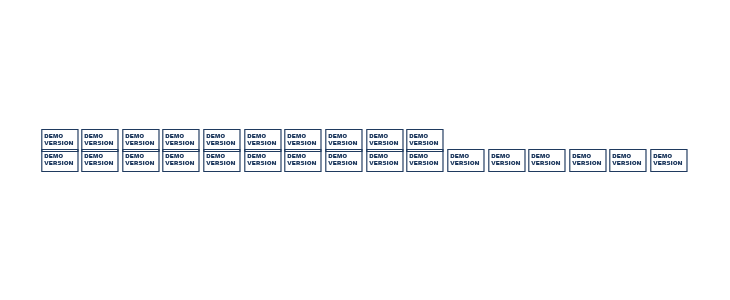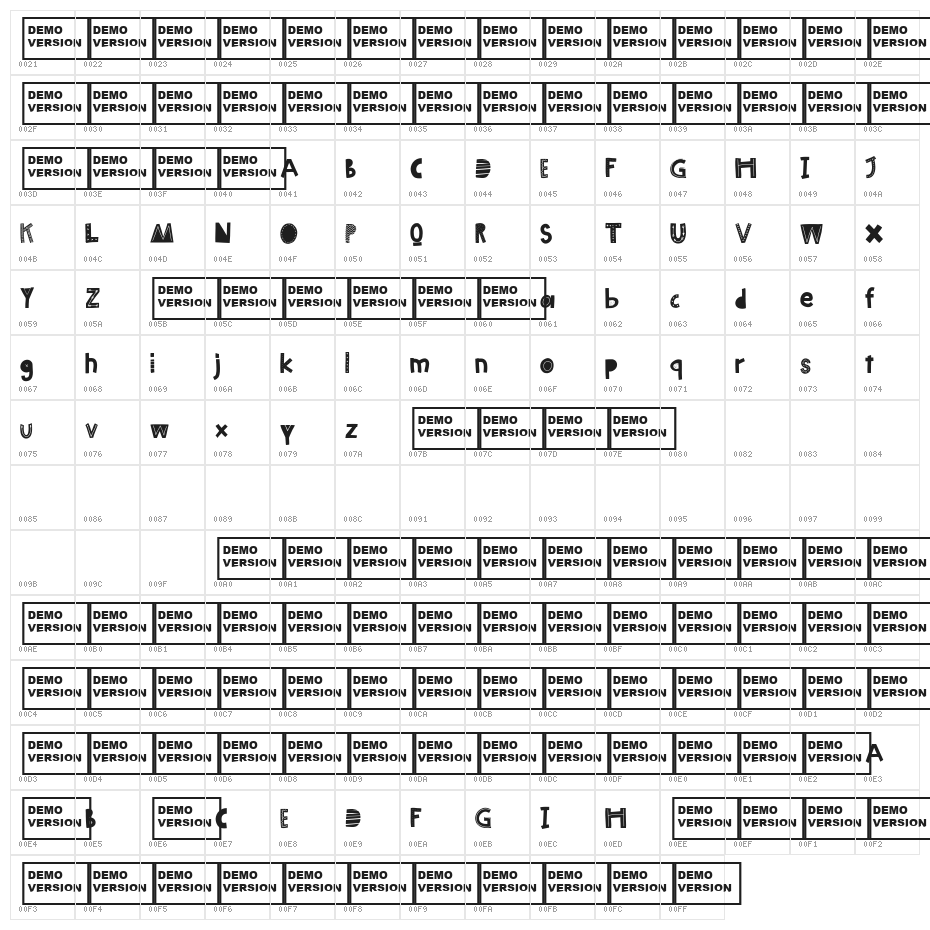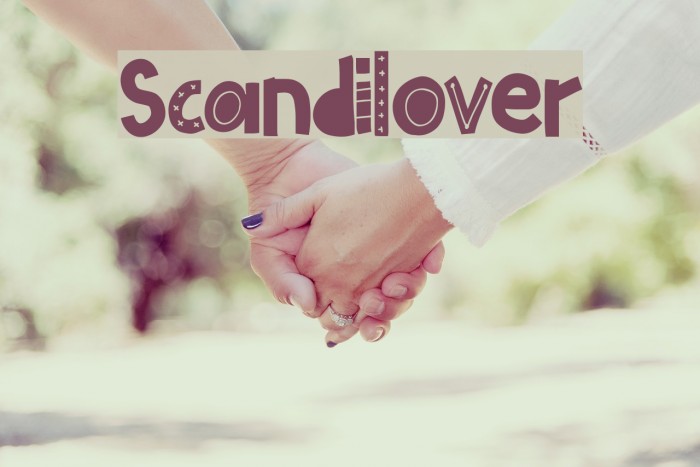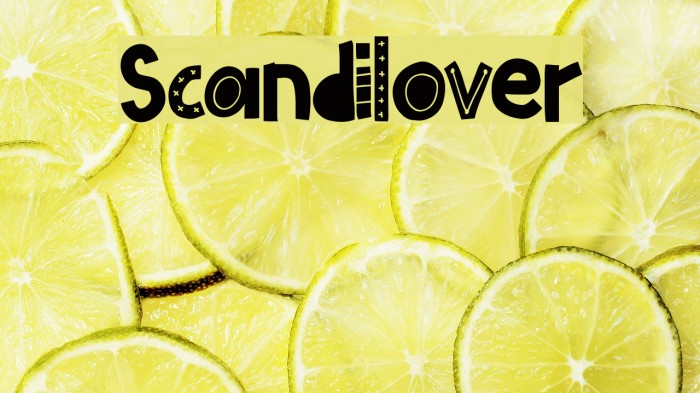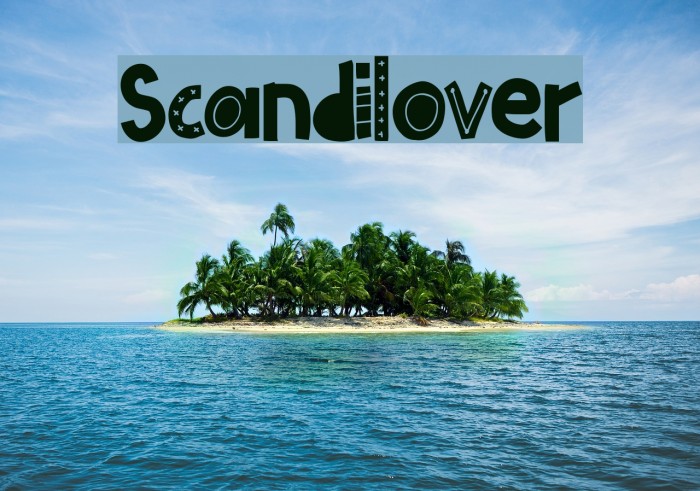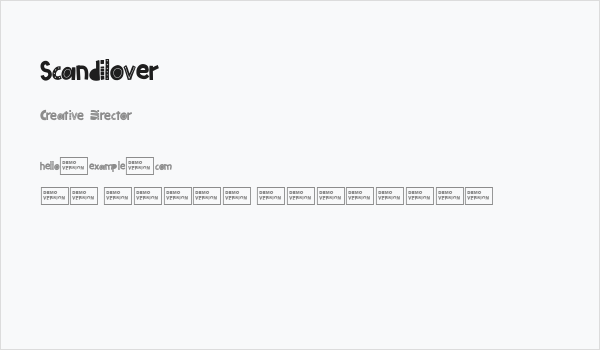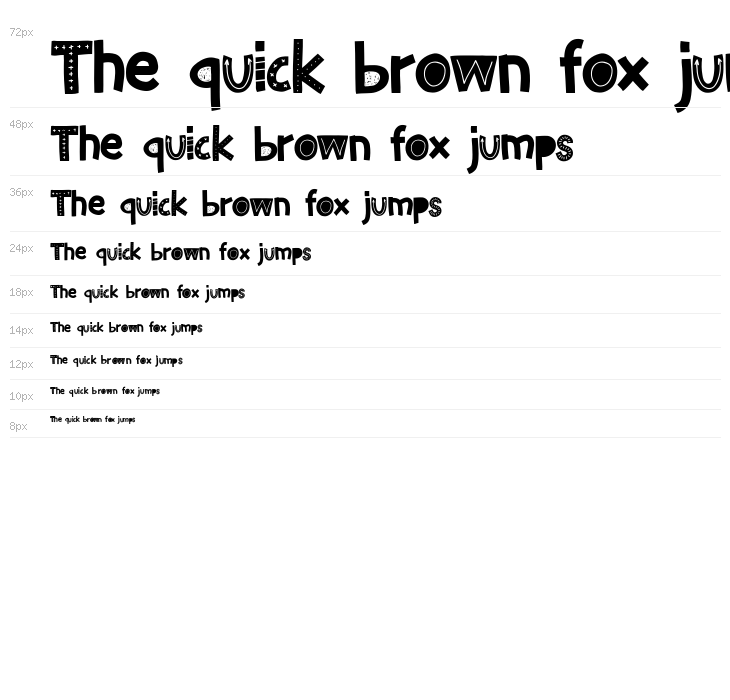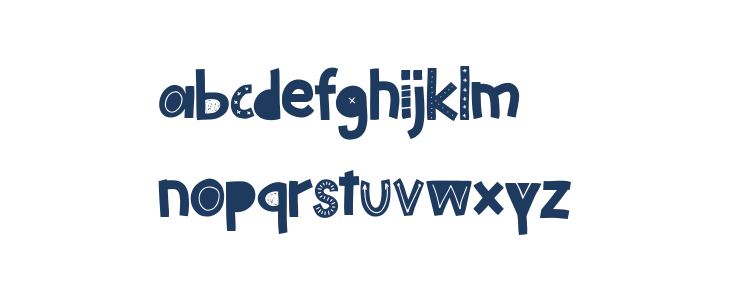
Scandilover Font
Scandilover Description
This font features a playful and eclectic design, with each character exhibiting unique patterns and shapes. The uppercase letters are bold and varied, incorporating stripes, dots, and geometric elements that create a lively and dynamic appearance. The lowercase letters maintain this whimsical style, offering a cohesive yet diverse look. The font's decorative nature makes it ideal for creative projects that require a touch of fun and individuality. Its bold and artistic strokes are perfect for capturing attention and adding a distinctive flair to any design.
| Proposed Projects | Ideal for children's books, playful branding, party invitations, and creative posters. |